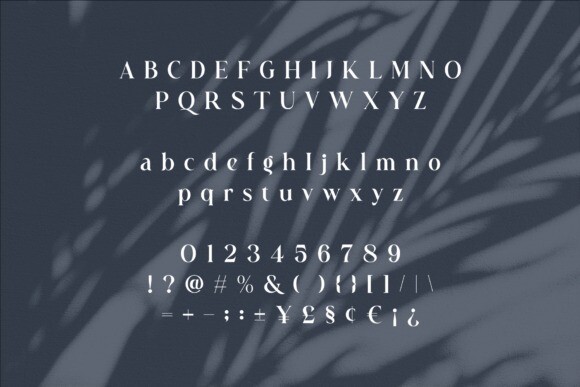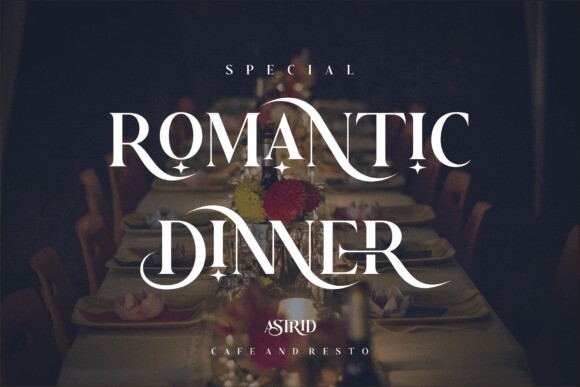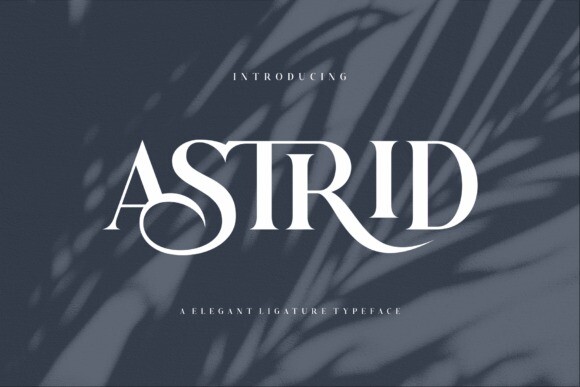
Astrid Serif Font
Astrid Serif Font, a captivating serif font, blends timeless elegance with modern flair. Its graceful letterforms boast intricate serifs, imparting a sophisticated charm. Astrid’s balanced proportions and subtle curves create a harmonious rhythm, making it an ideal choice for conveying refined aesthetics in any design.